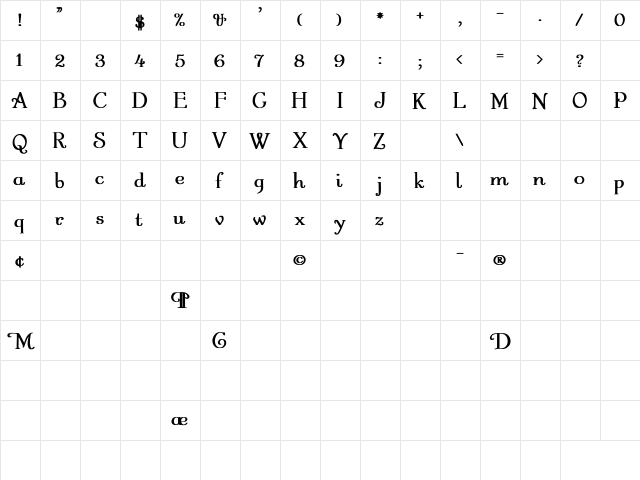
Garton Regular Bold Bold
Design Context for Garton Regular Bold Typeface
Garton Regular Bold offers clean, dependable letterforms without strong stylistic allegiance, making it a practical choice for designers who need flexibility. Its bold stroke weight gives it real presence on the page.